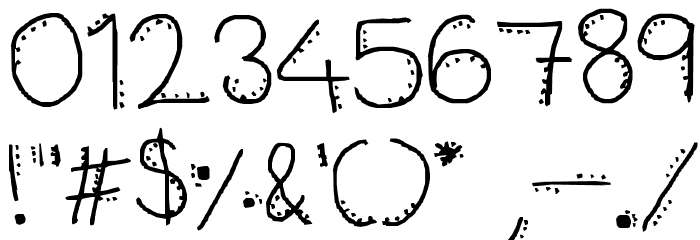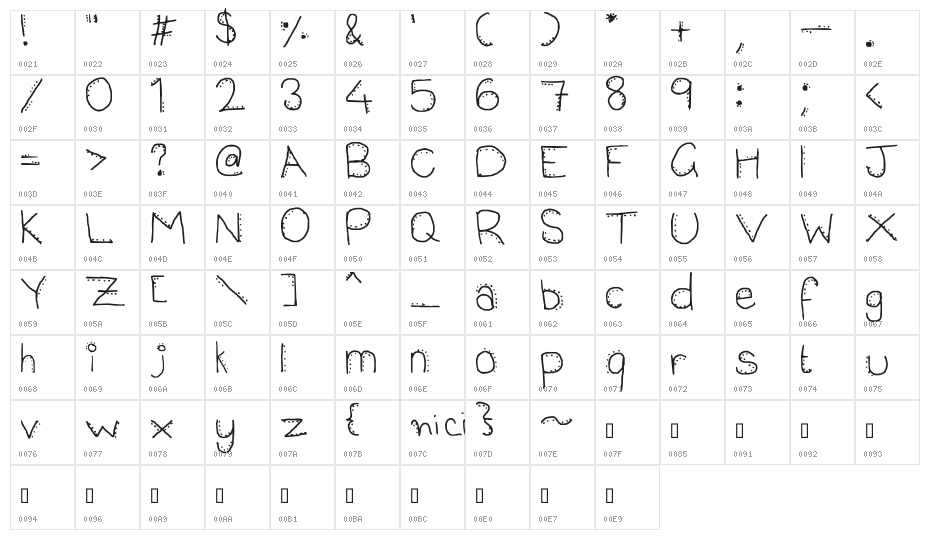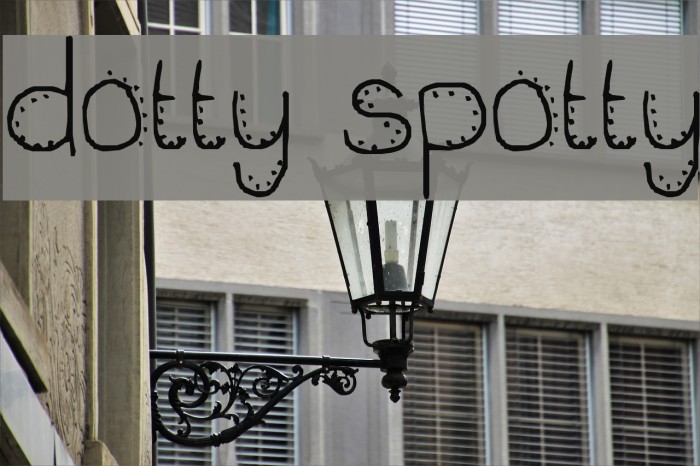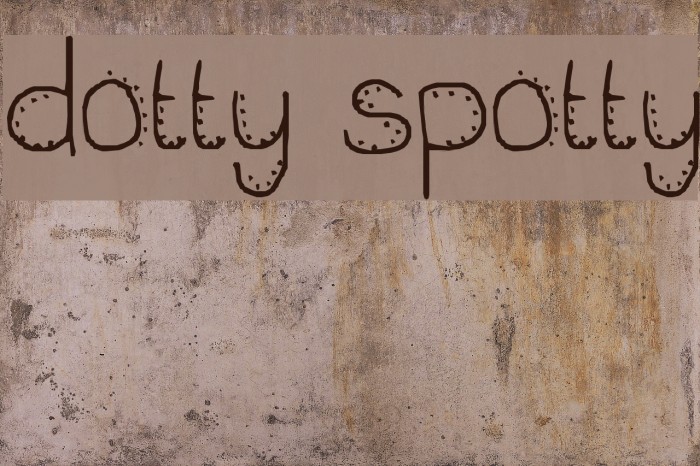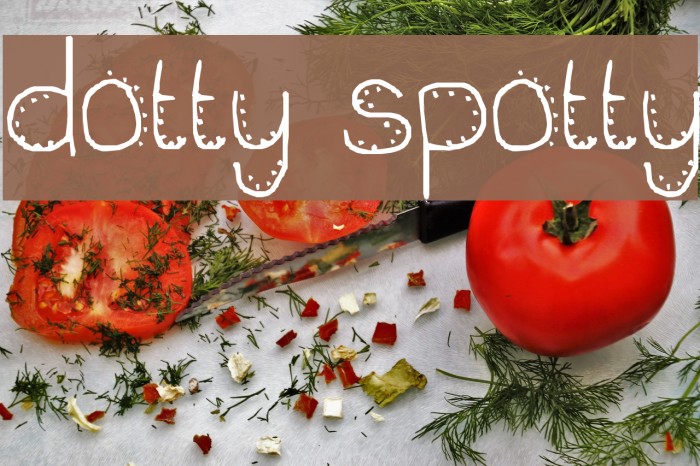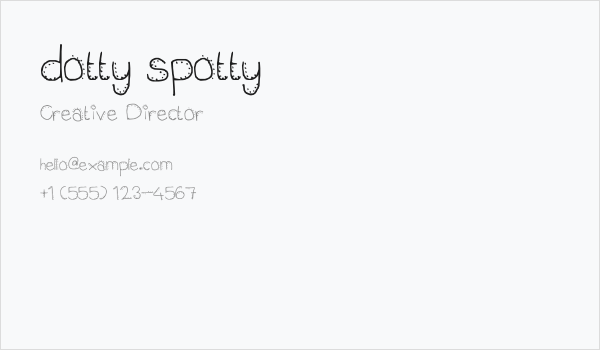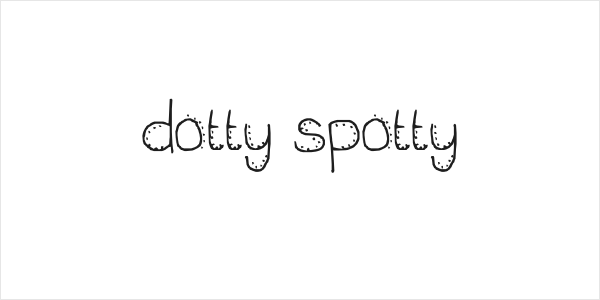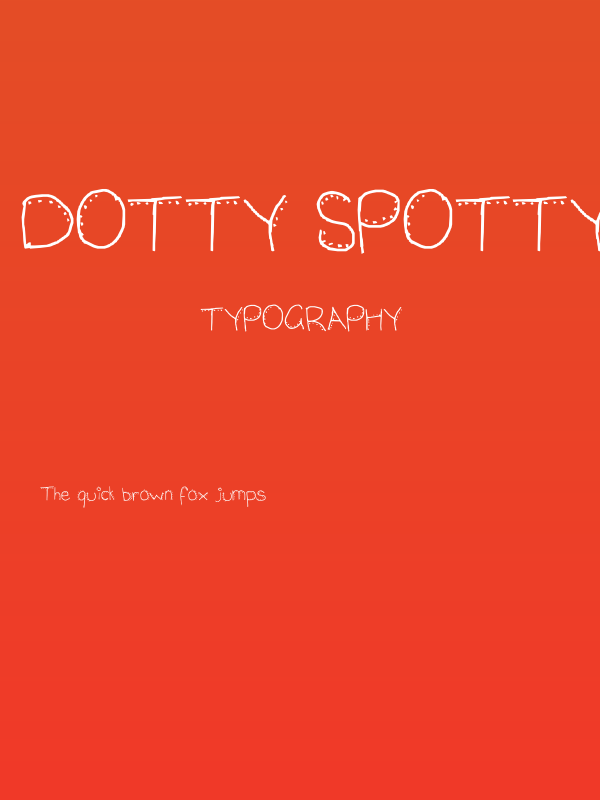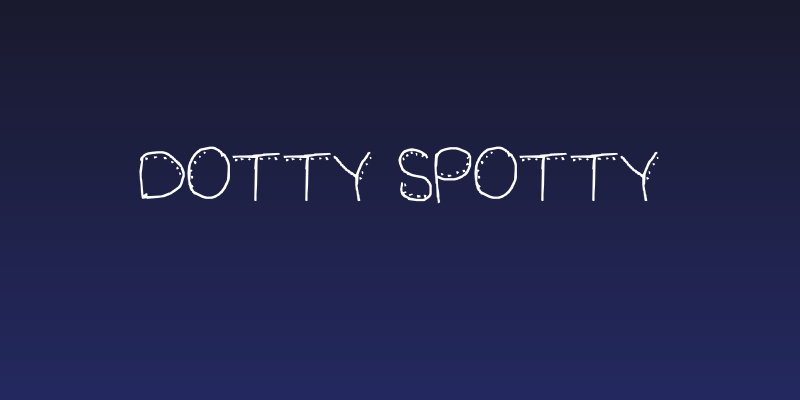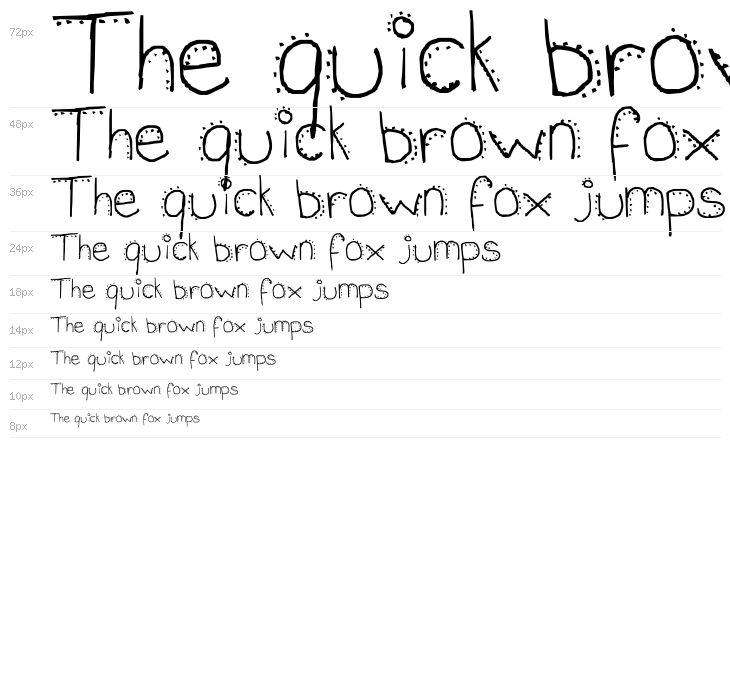
dotty spotty Font
dotty spotty Description
This playful and whimsical font features a unique dotted pattern along the strokes of each character, giving it a lively and textured appearance. The letters are crafted with a casual, hand-drawn style, adding a sense of fun and creativity. The uppercase and lowercase letters maintain a consistent design, with rounded edges and a slightly irregular form, enhancing the font's informal charm. Numbers and special characters follow the same dotted theme, ensuring a cohesive look across all elements. This font is perfect for projects that require a touch of personality and flair.
DOTTY-SPOTTY UPPERCASE
DOTTY-SPOTTY LOWERCASE
DOTTY-SPOTTY OTHER CHARS
| Overall Style | Whimsical, Playful |